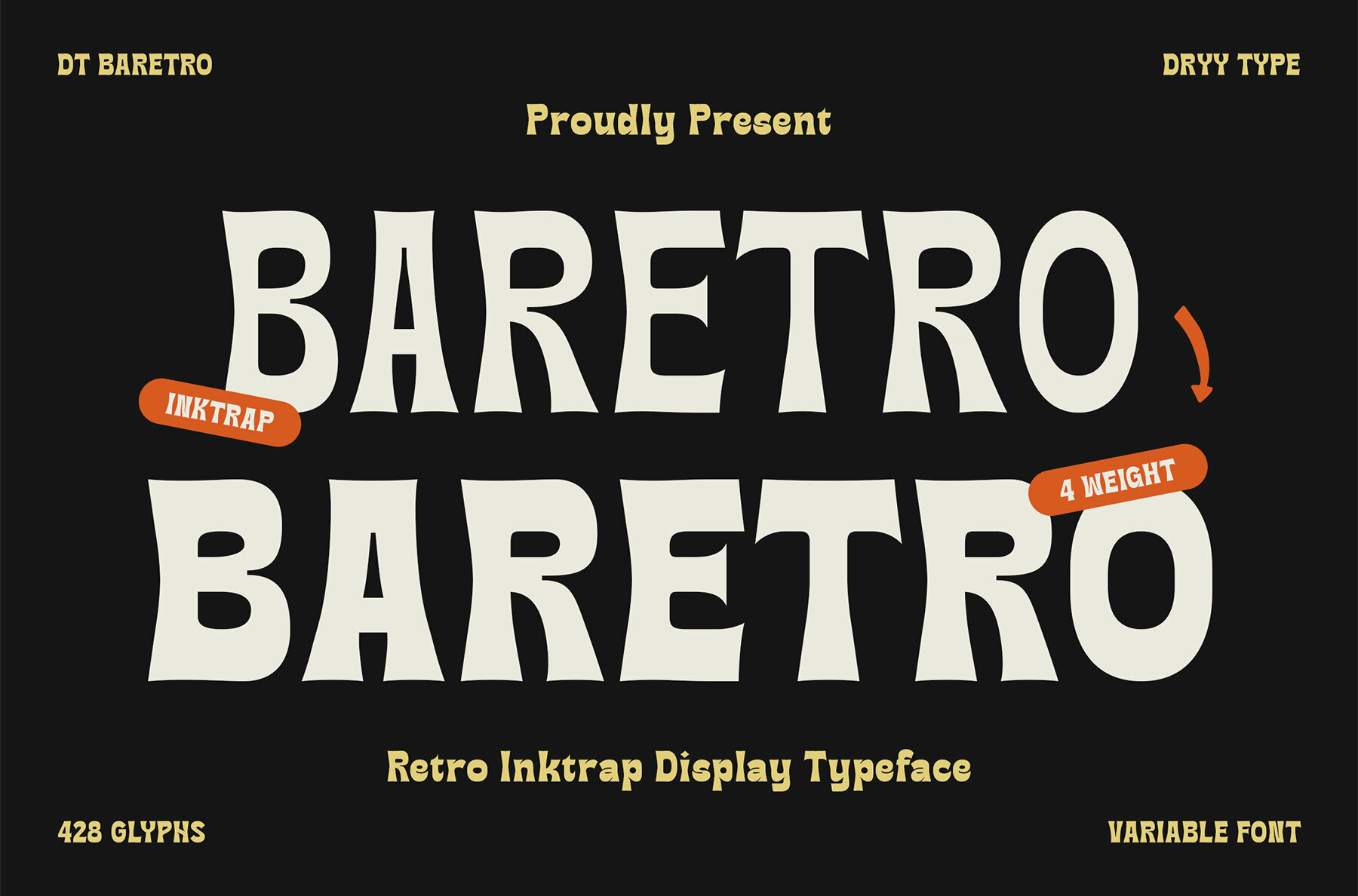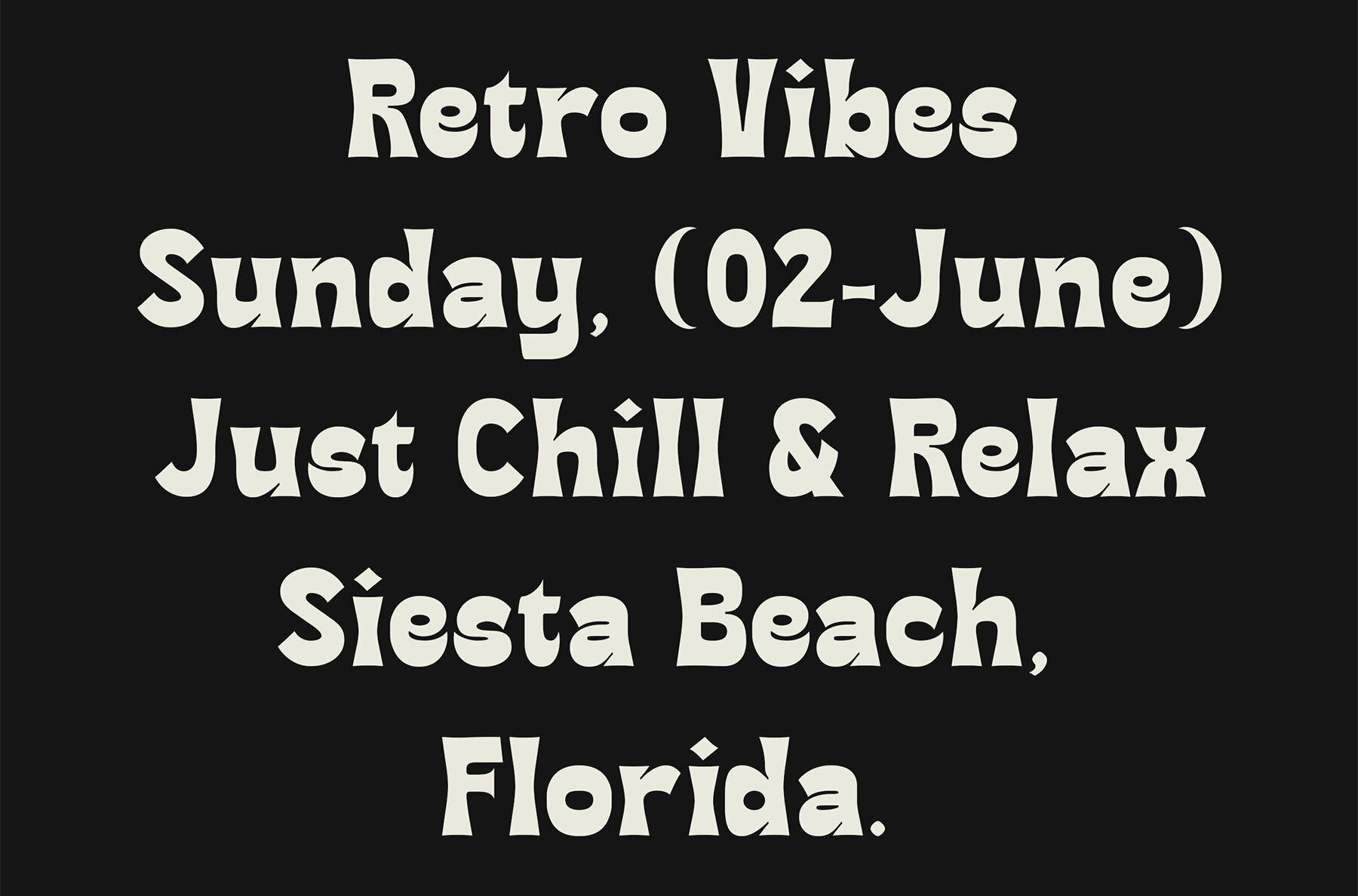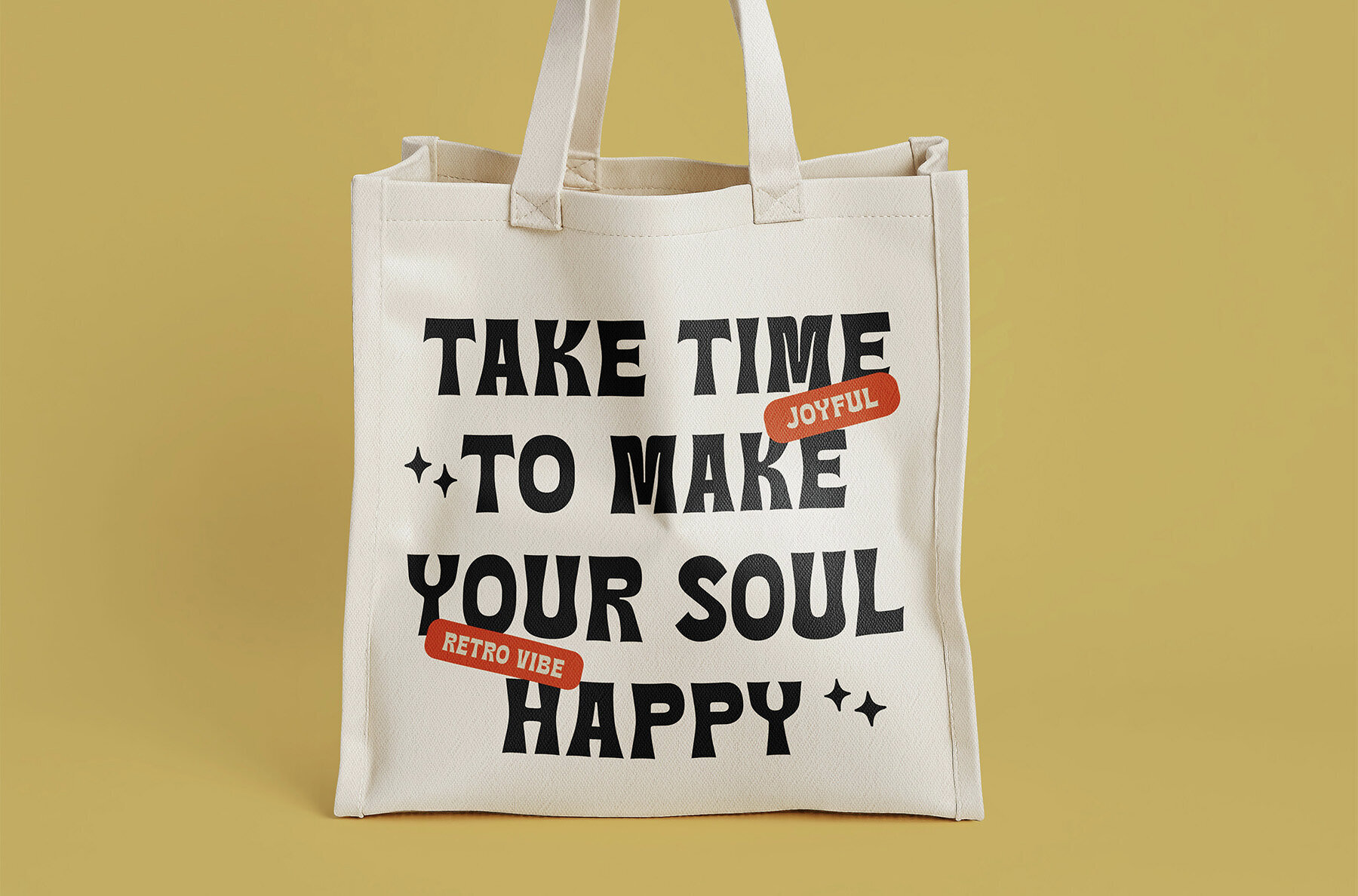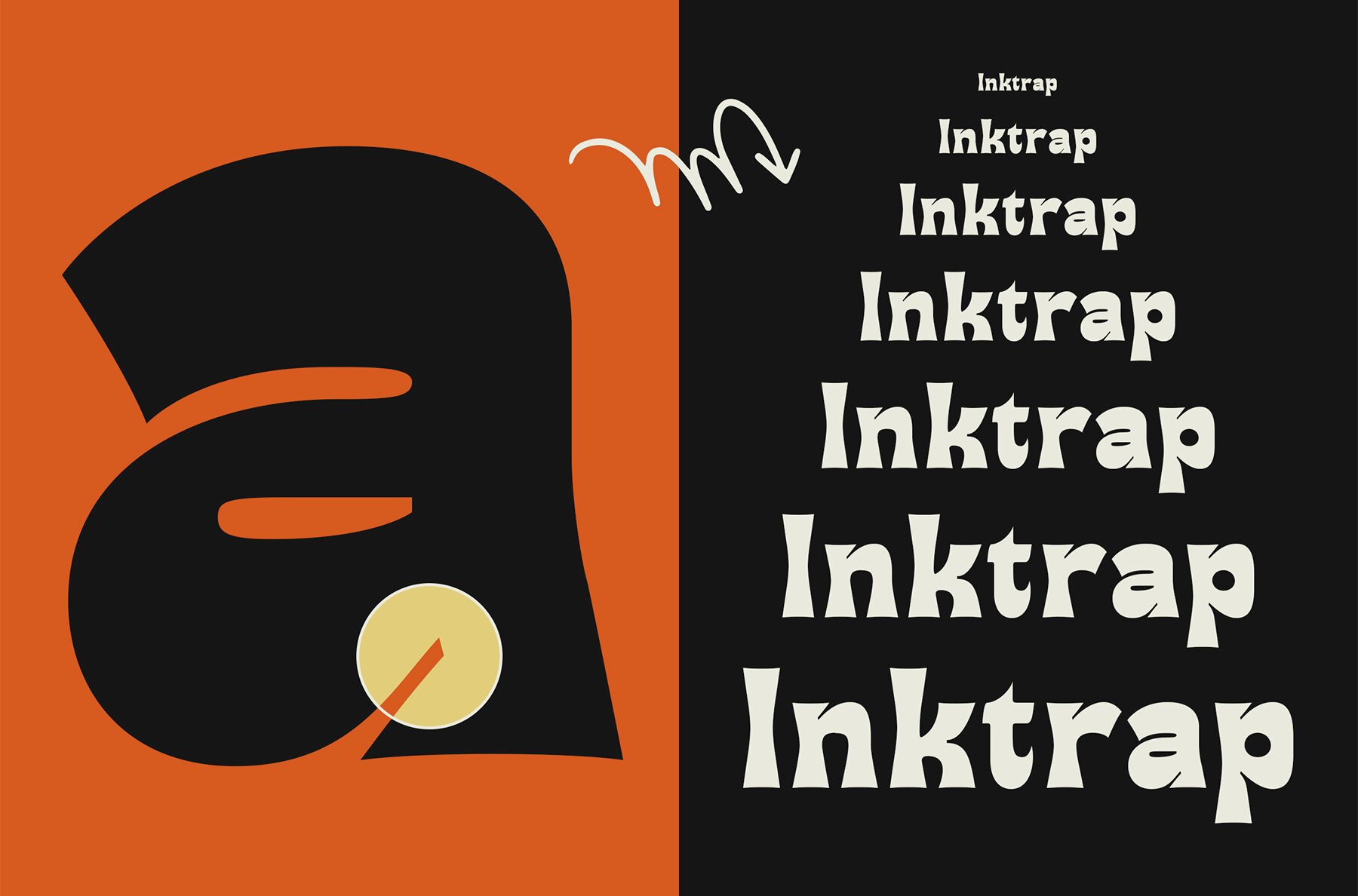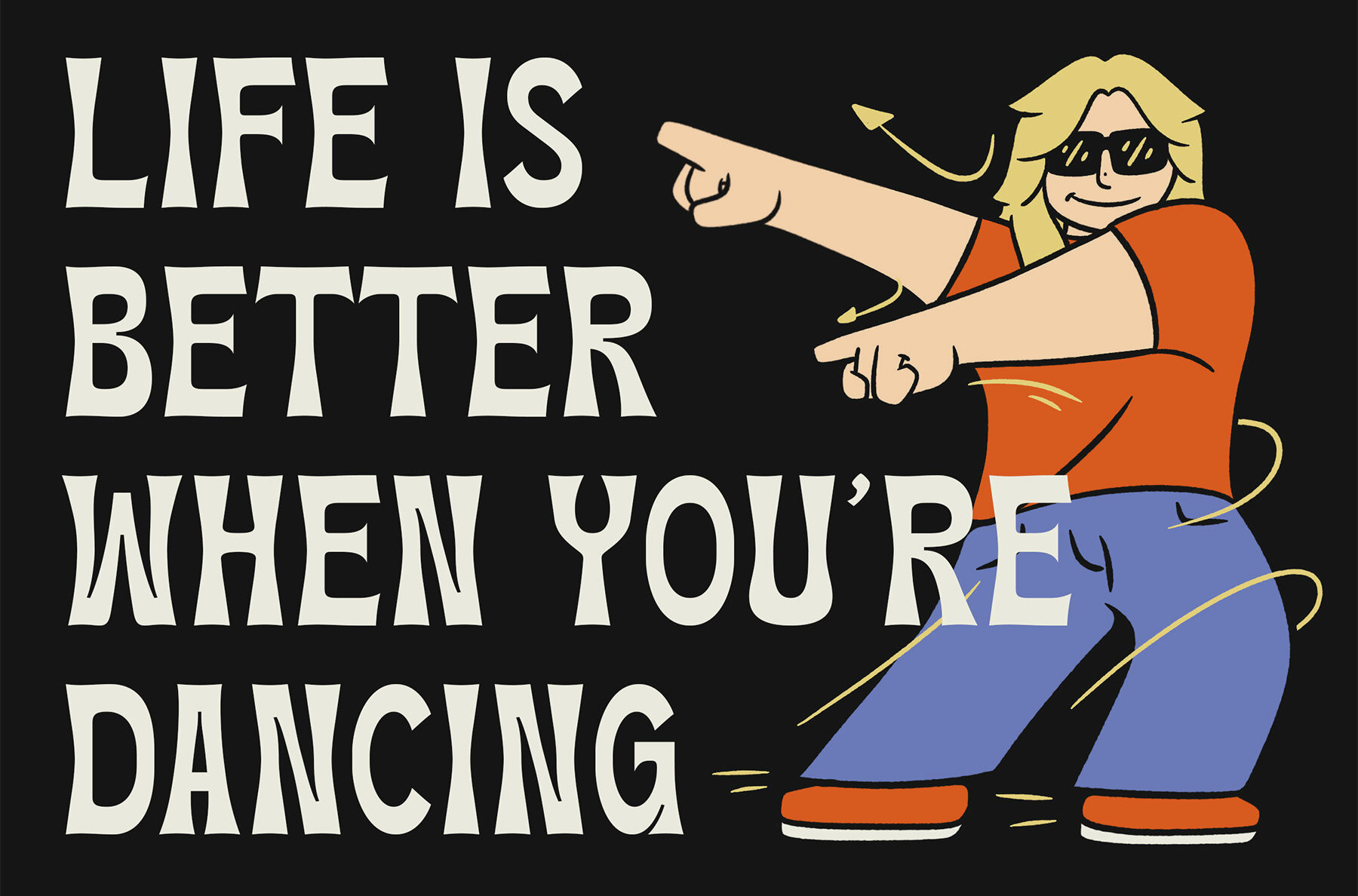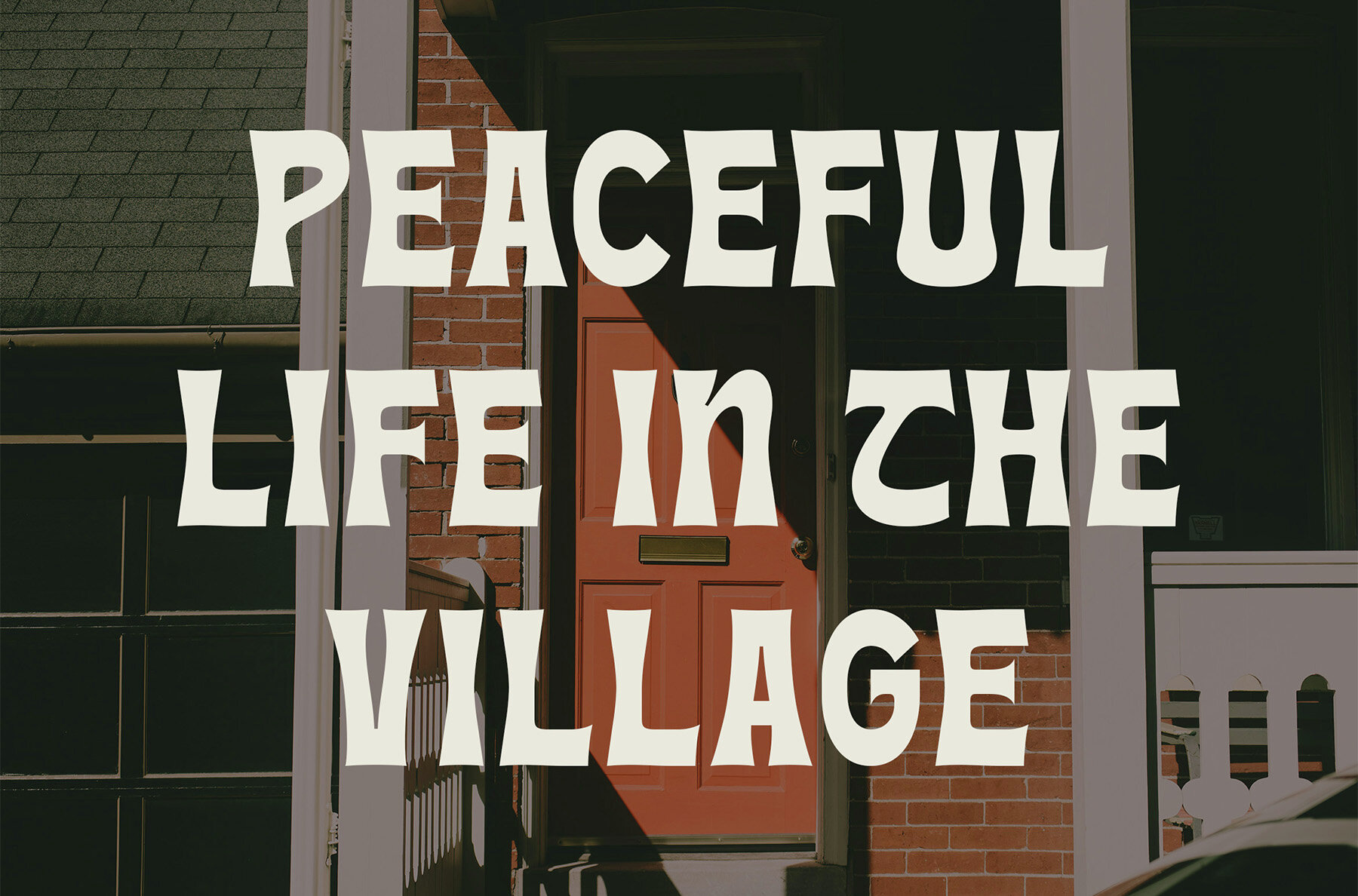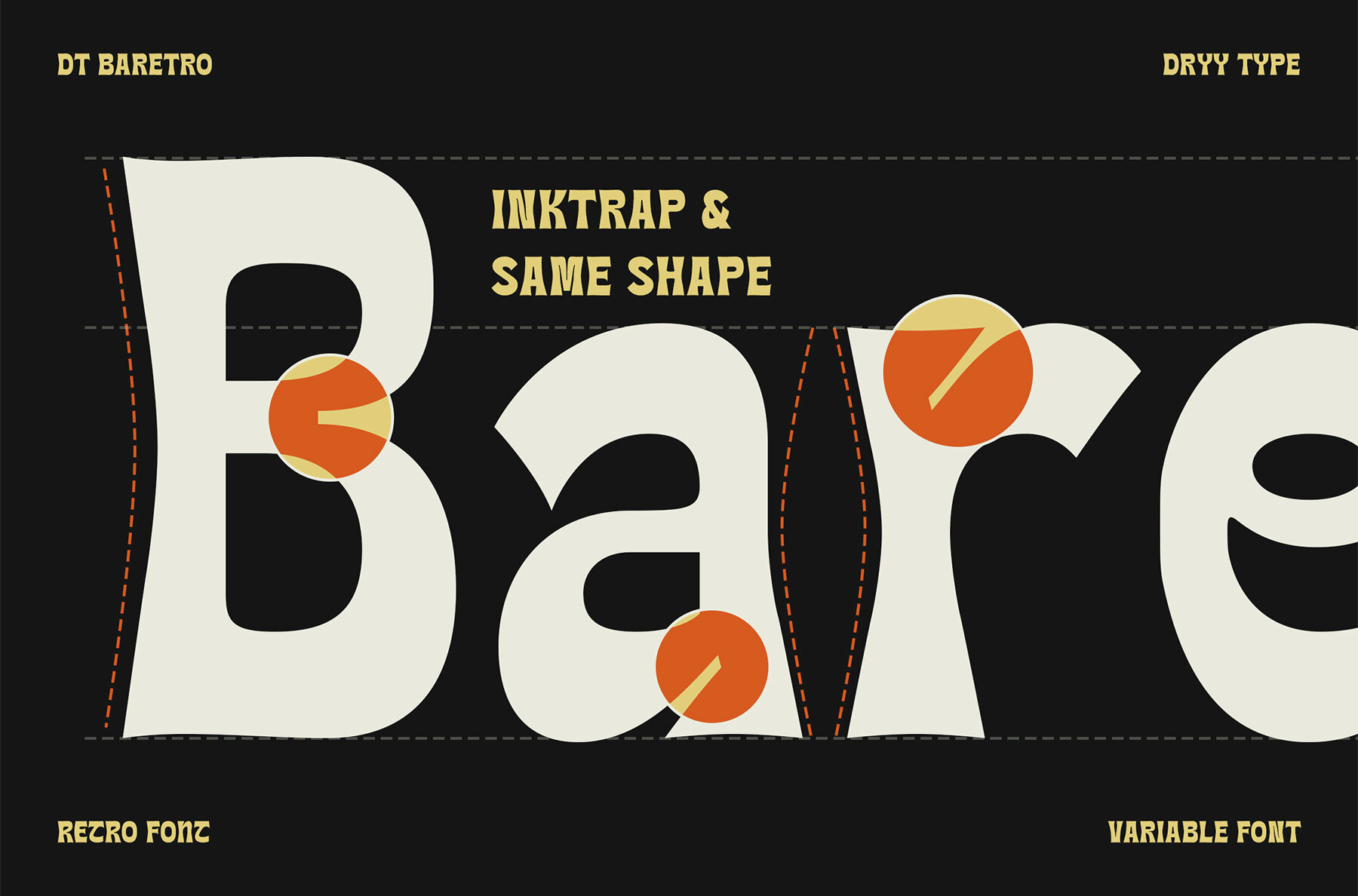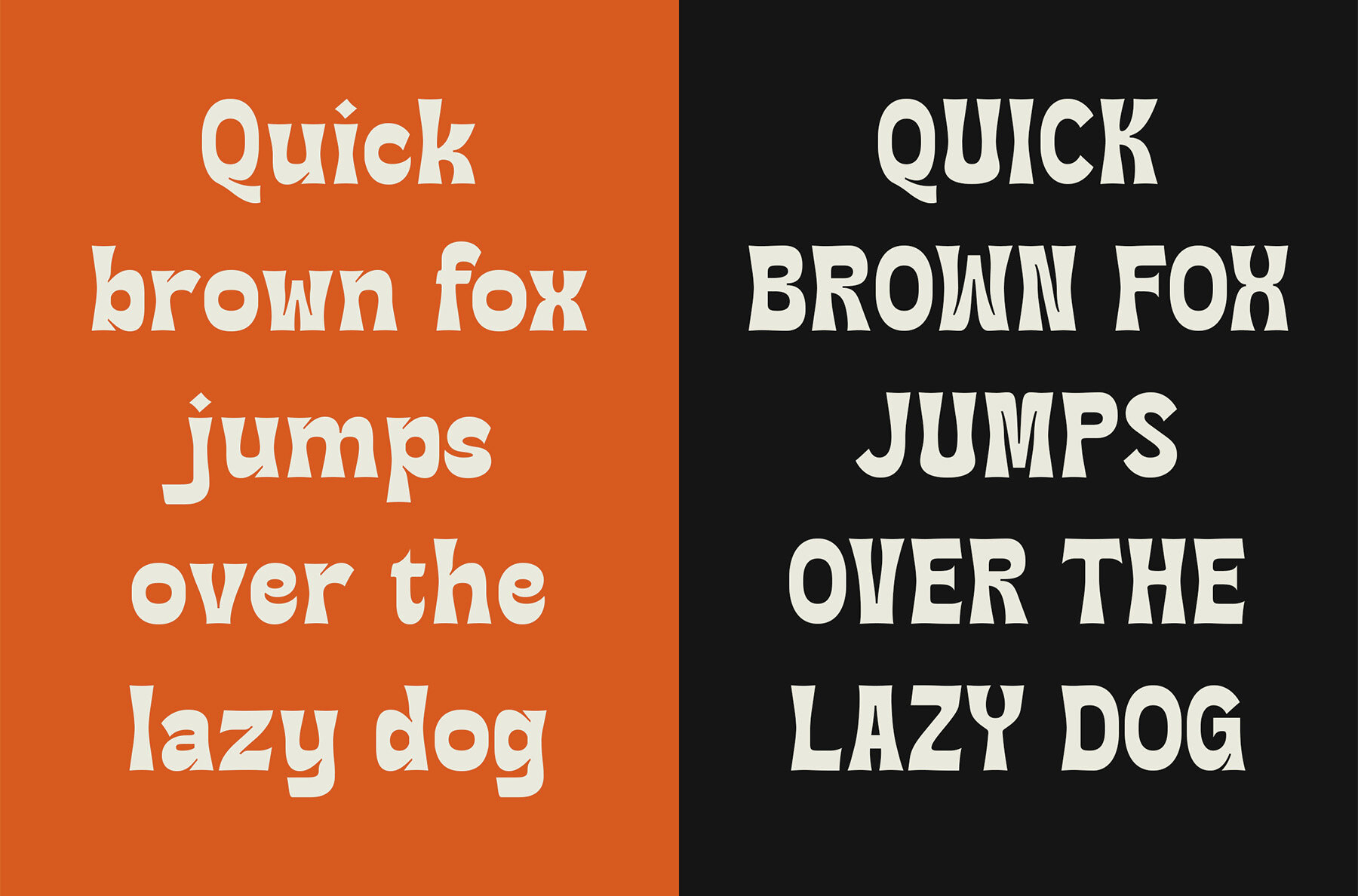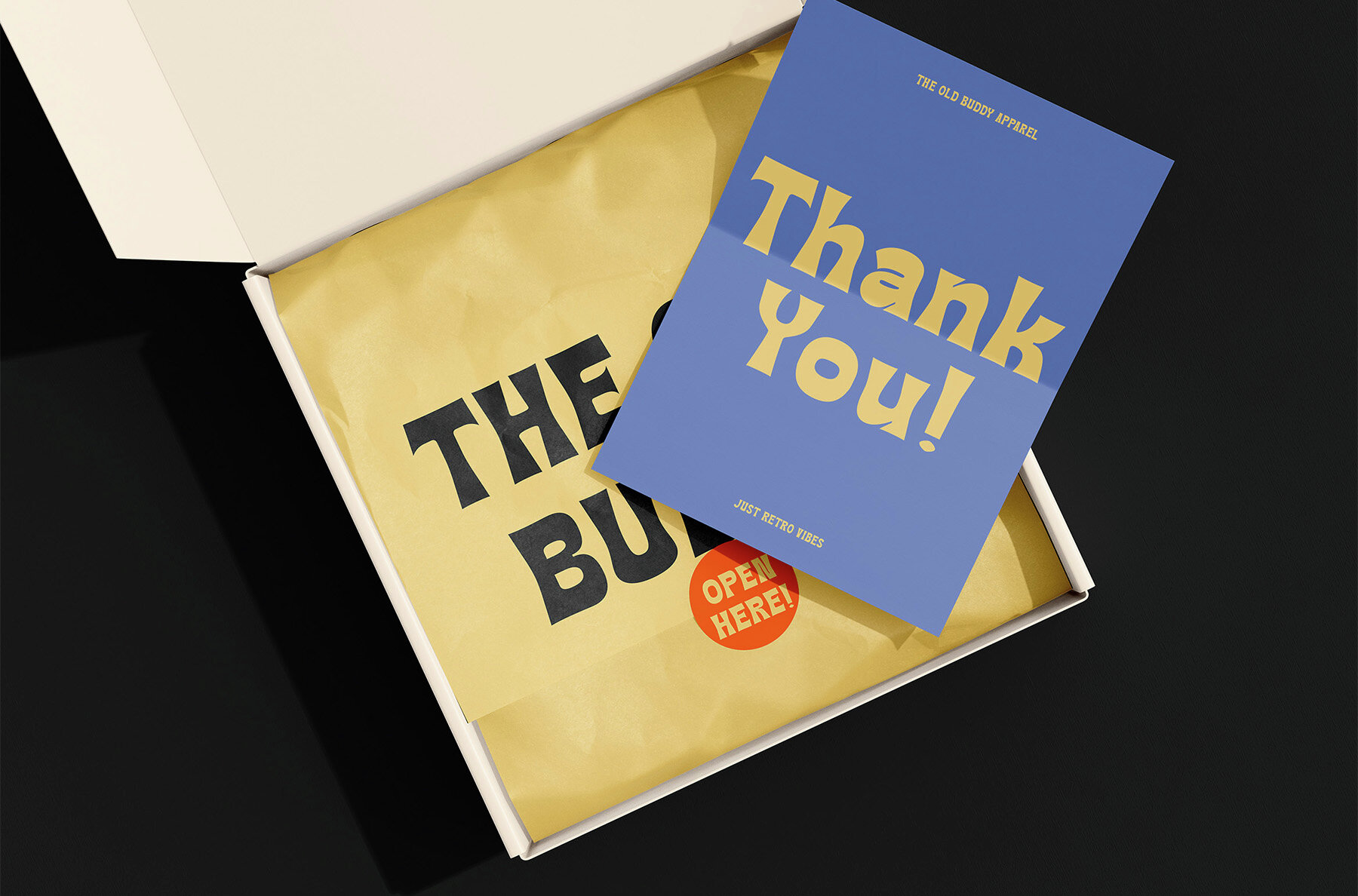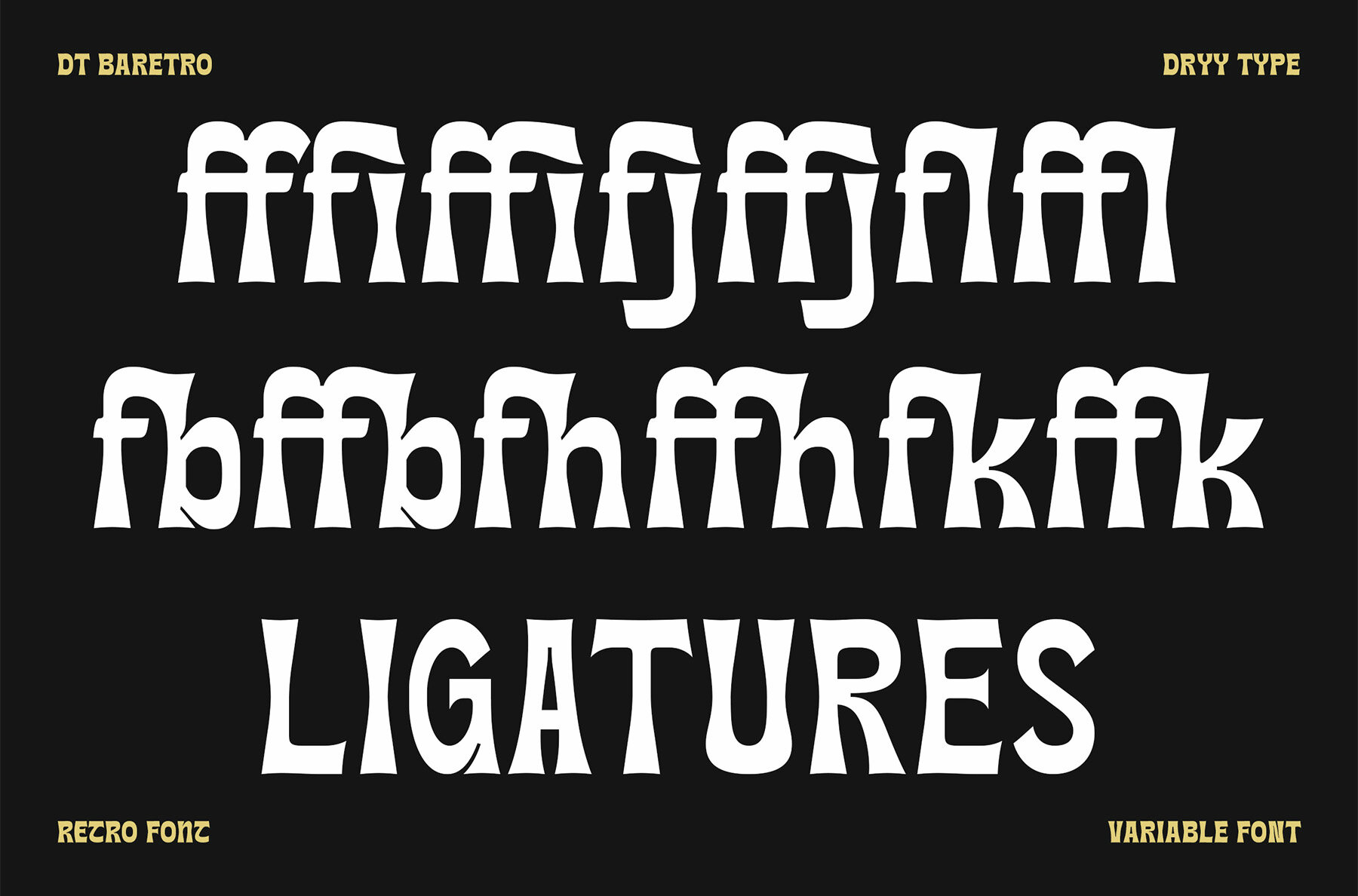
DT Baretro Font
Step into a whimsical world of design with the DT Baretro font. This retro-inspired typeface infuses a cheerful and playful essence into any creative project. Its versatility ensures that your designs are imbued with a vibrant character, making it an excellent choice for a wide array of applications. Features: DT Baretro offers diverse weights including Regular, Medium, Semi Bold, and Bold, providing you with a range of options to tailor your design's aesthetic.DT Baretro: A Playful Retro Typeface